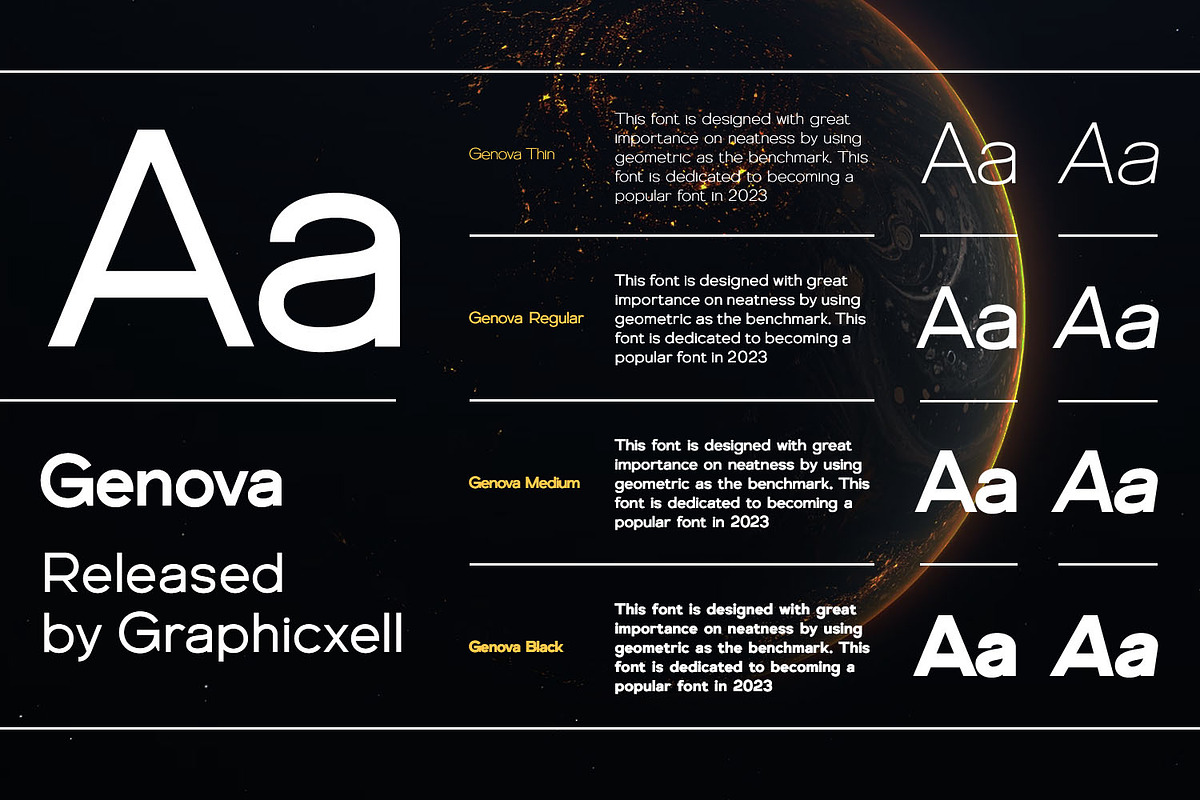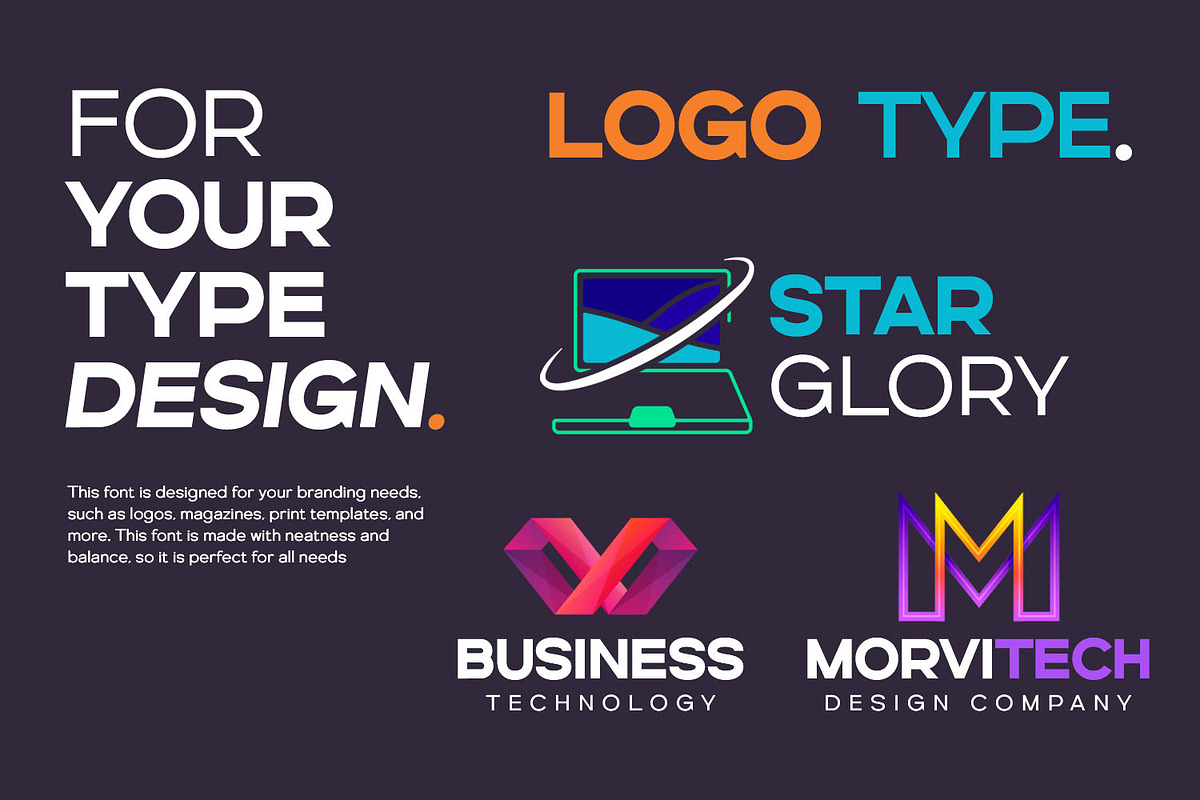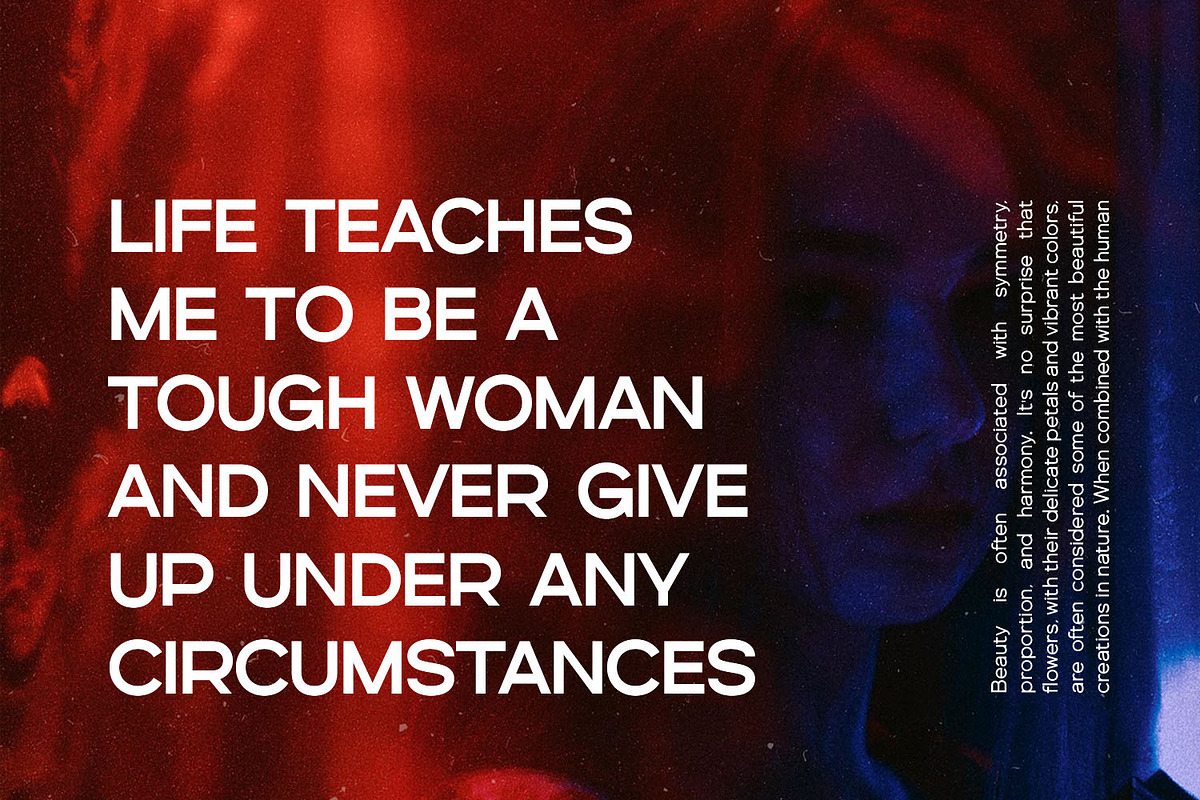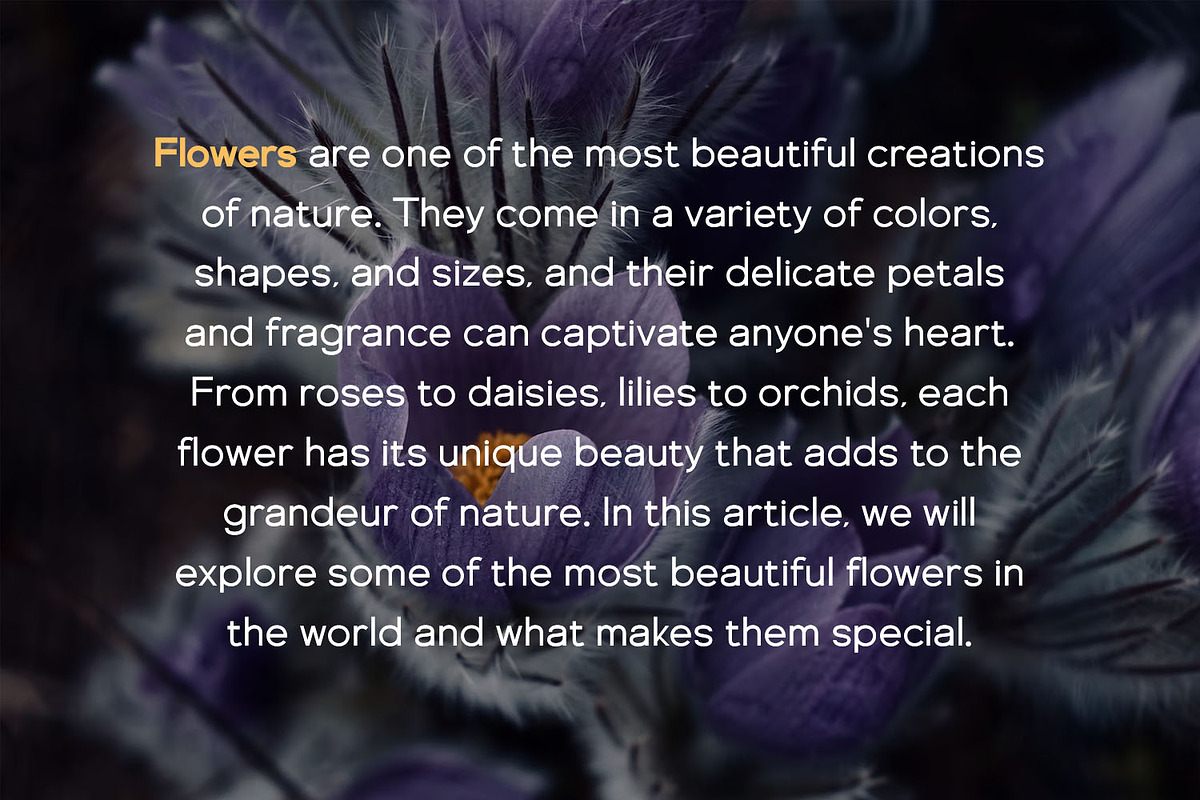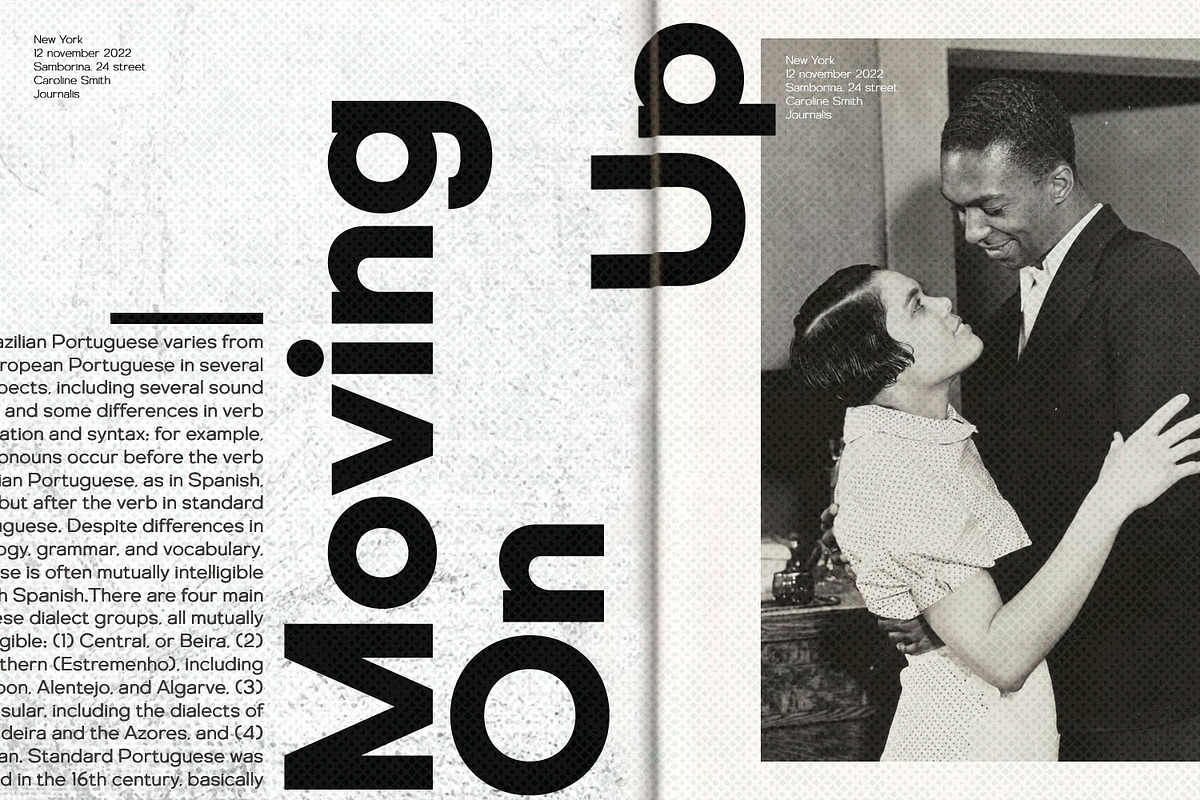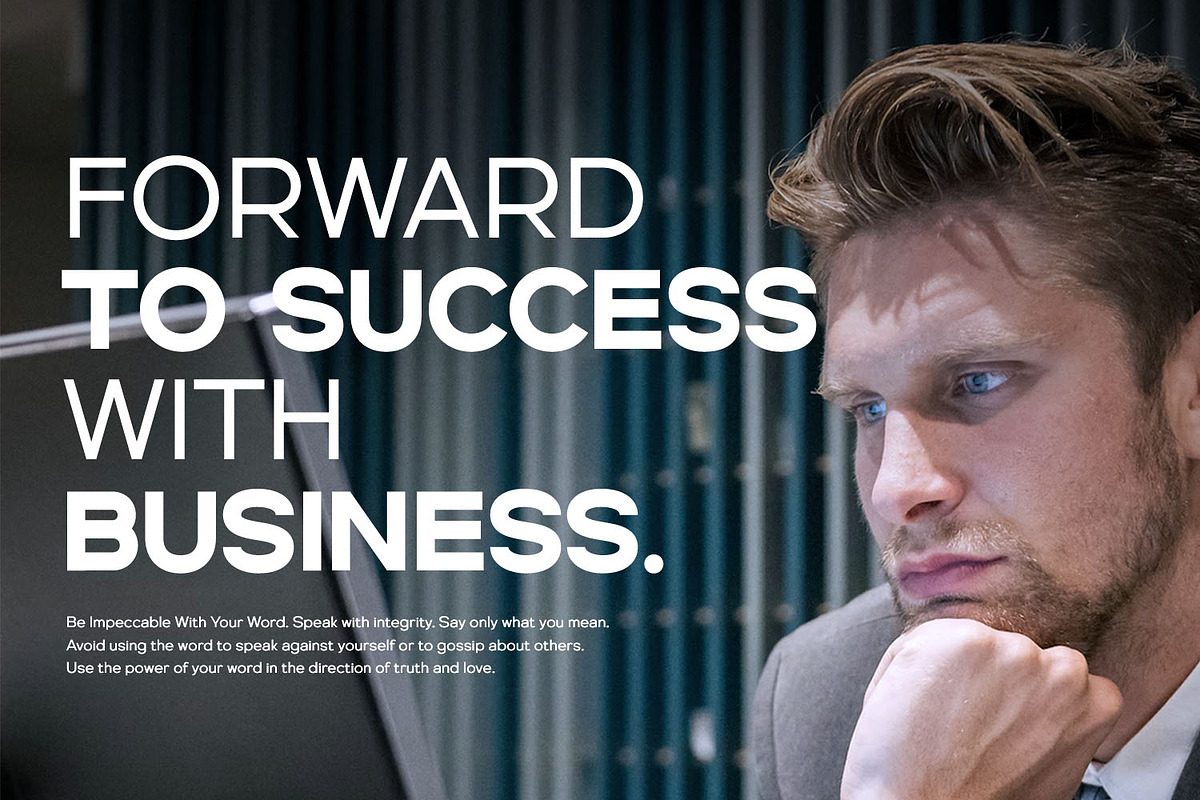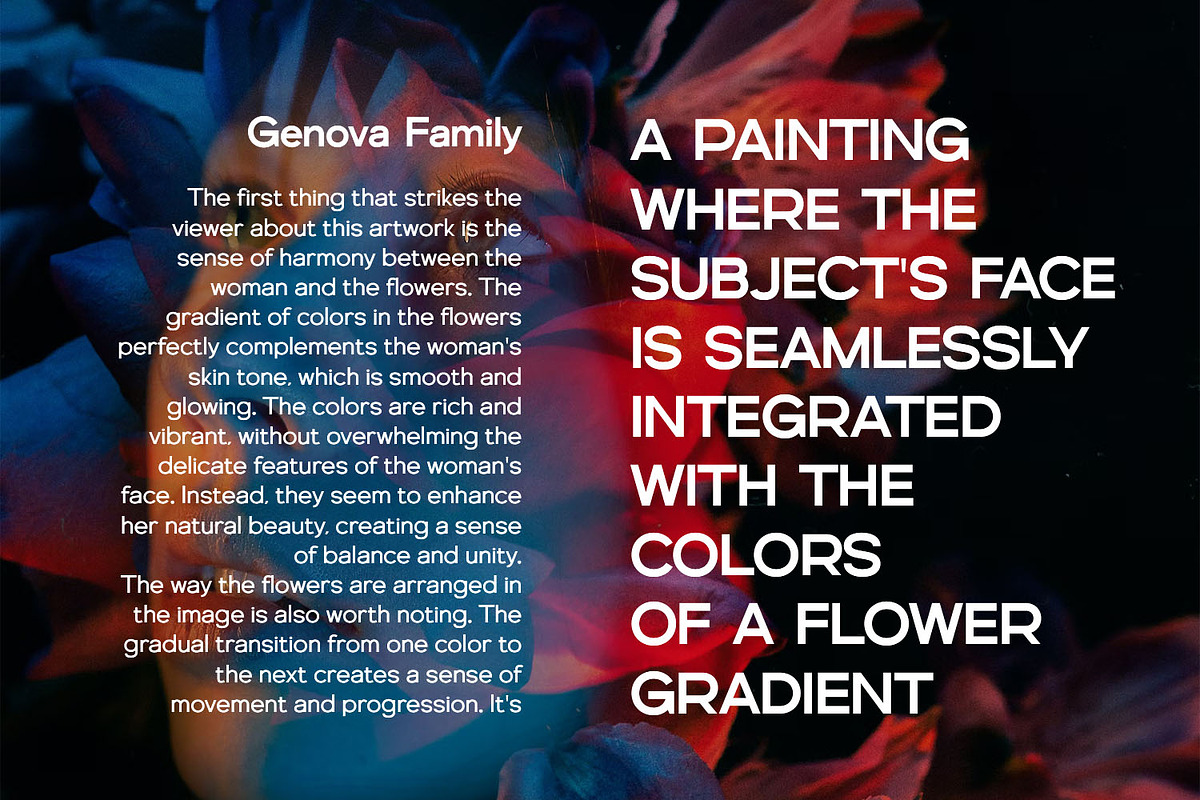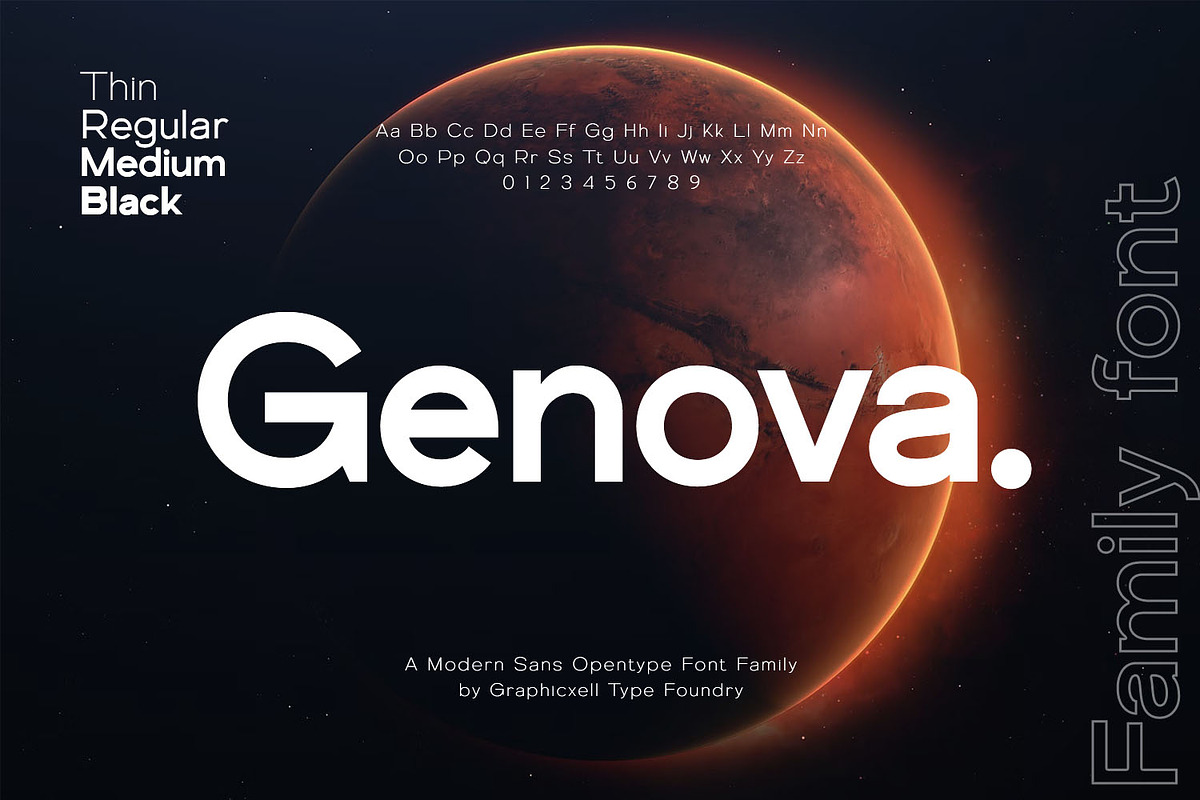
Genova Family Sans Opentype
Genova is a sans serif type family with 4 variables namely Thin, Regular, Medium and Black. This font has a harmonious and beautiful shape that makes it perfect for all your needs for long text, branding, logotypes, print designs and more. This font is made in detail and measured by using geometric details to make this font look balanced and minimalist. This font is dedicated to the use of all needs in 2023, and will be the most popular and best selling font of the year.